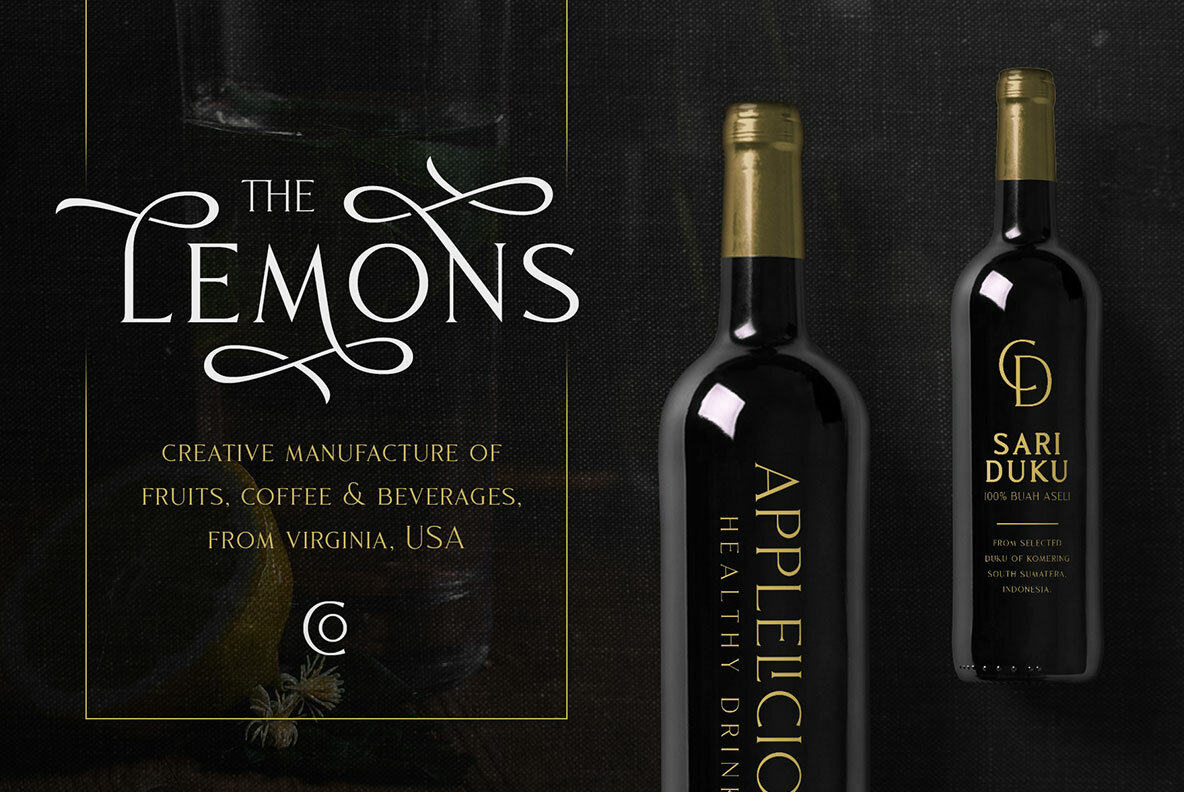
Mourich Font
Introducing Mourich, a sophisticated serif font by acclaimed designer Ahmad Ramzi Fahruddin, conceived with two complementary styles perfect for chic and minimalist projects. Characterized by a well-balanced medium contrast in the strokes, Mourich distinctly presents itself as an all-caps font enhanced with small capitals, making it an astute choice for headlines or logos, whether displayed in large or small scales. Variants:Mourich: The Quintessential Stylish Serif